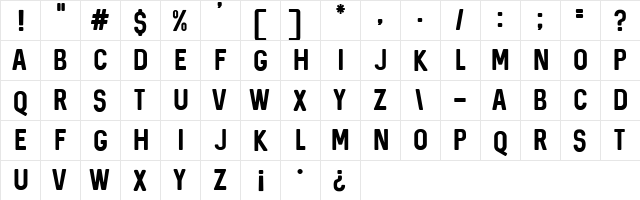
Sequel Regular Font Preview
Sequel Regular
Sequel Regular Font Details
| Foundry | phitradesign |
| Designer | Philip Trautmann |
Design Context for Sequel Typeface
Sequel takes a measured approach to typography — its balanced proportions and neutral character make it a reliable workhorse for both digital and print work.